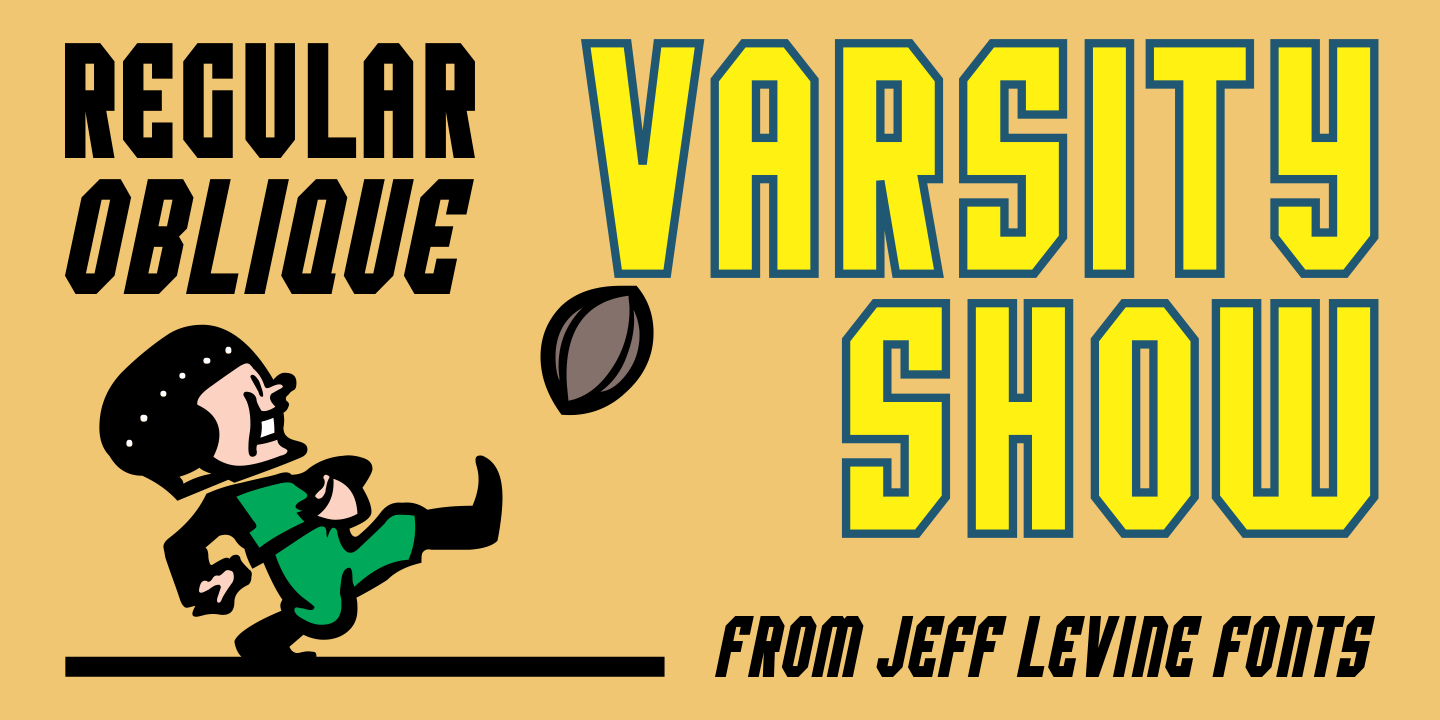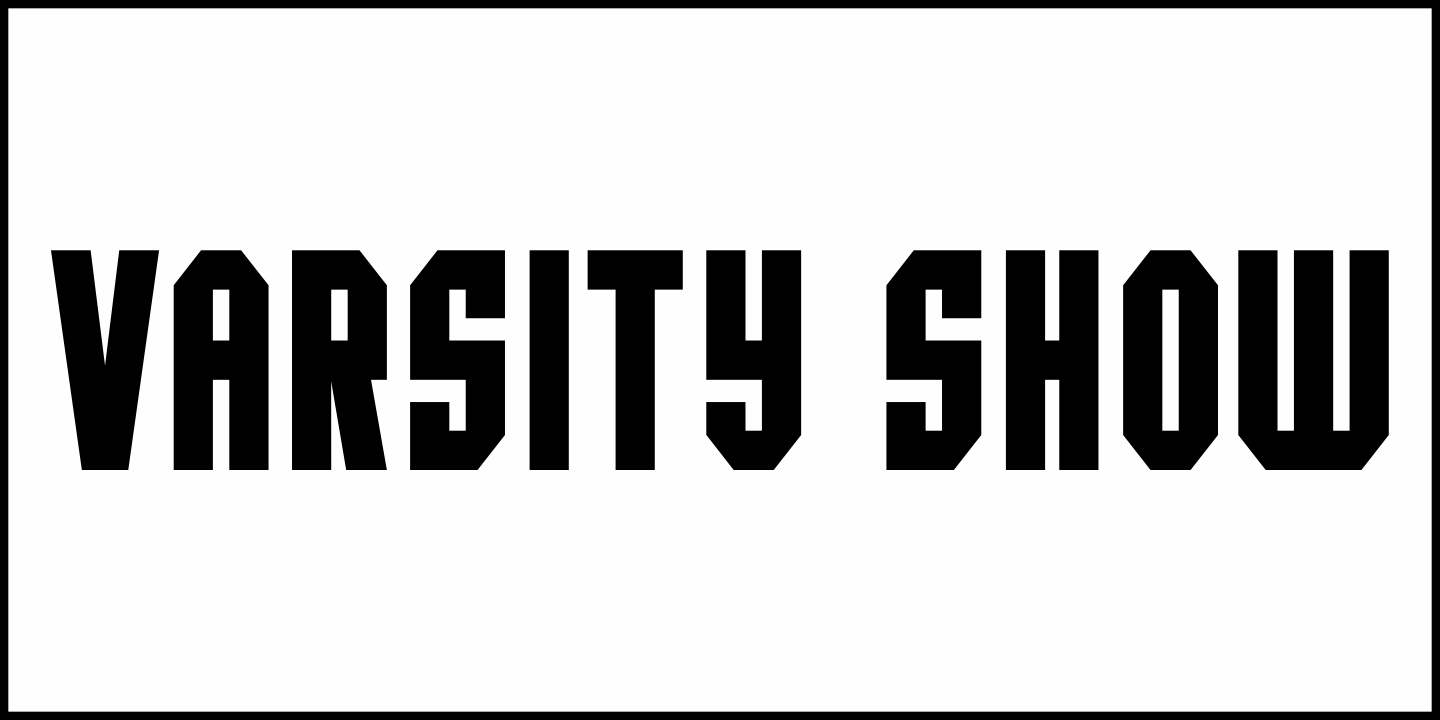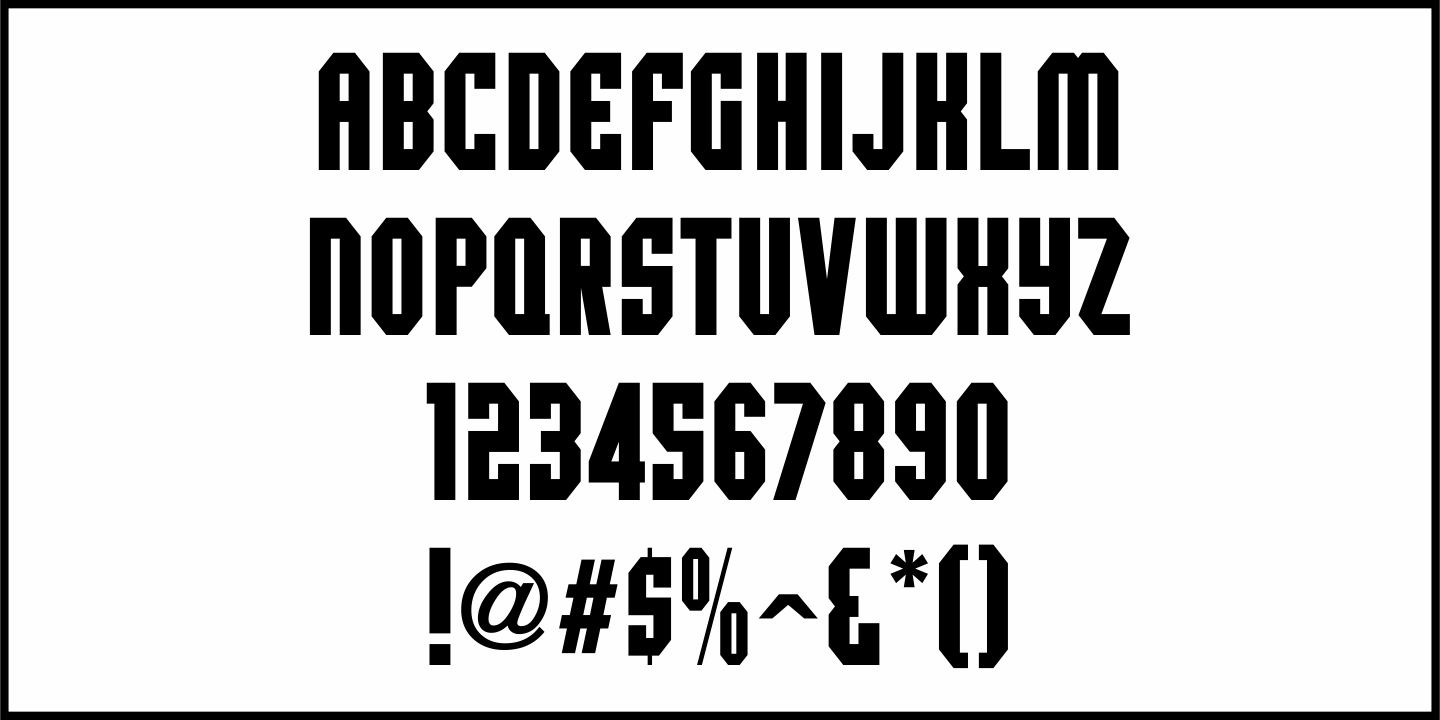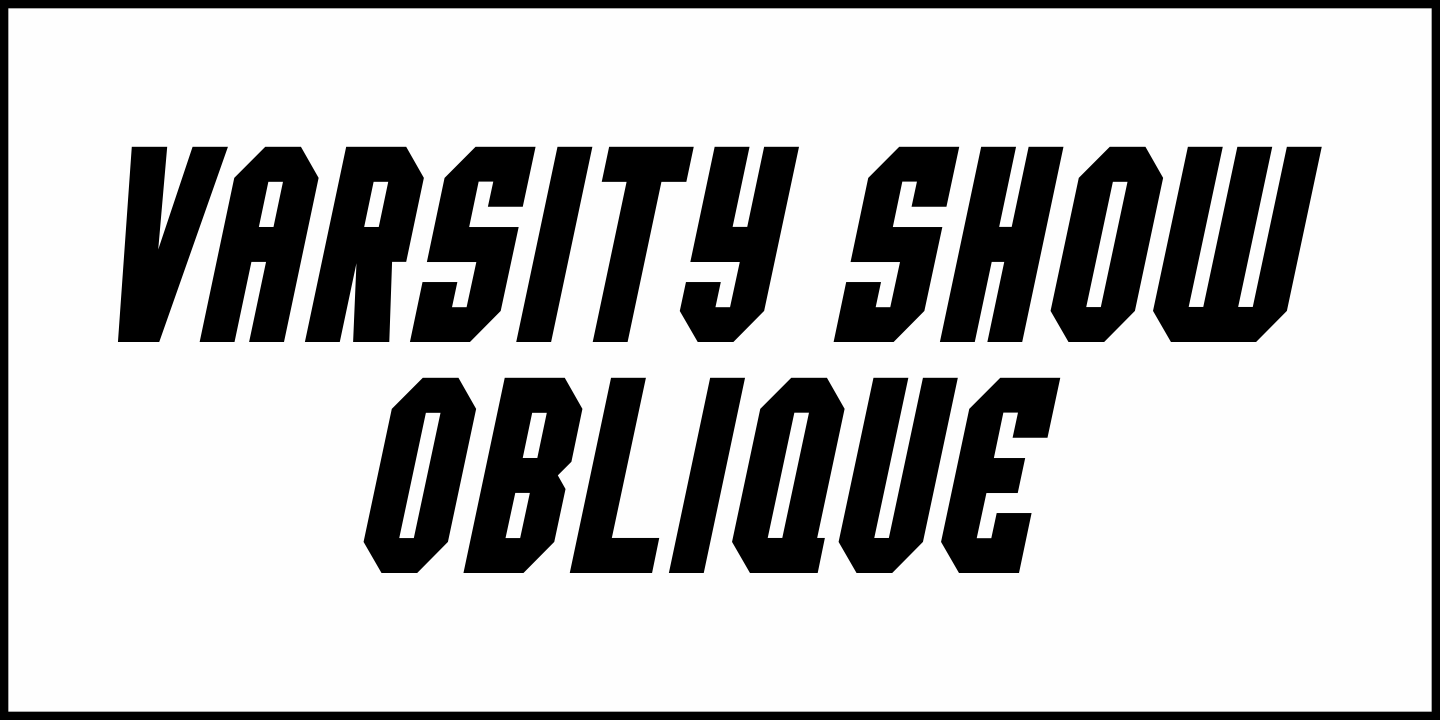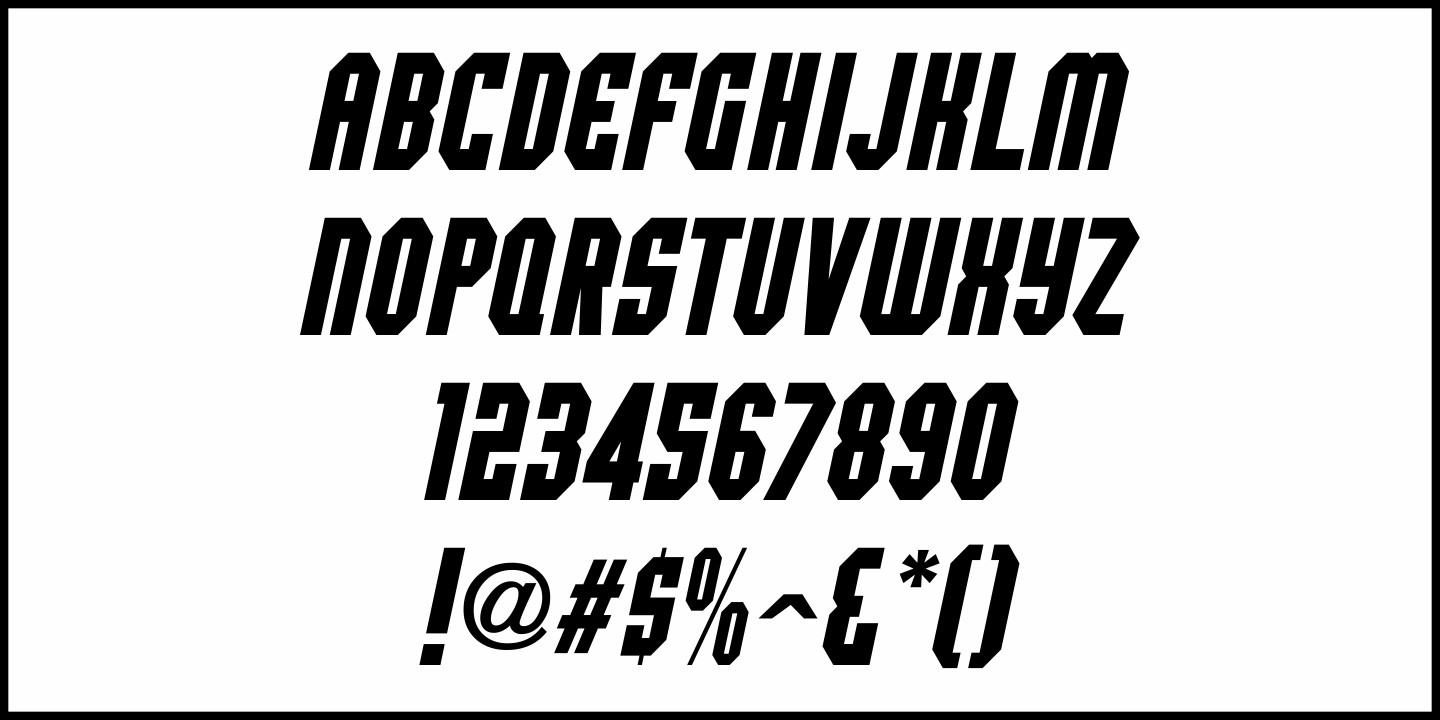
Varsity Show
In the last scene of the movie trailer for 1937’s “Varsity Show”, the movie’s title is hand lettered
in a bold, condensed chamfer font with semi-serifs.
This is now available digitally in the namesake font “Varsity Show JNL” – in both regular and oblique versions.